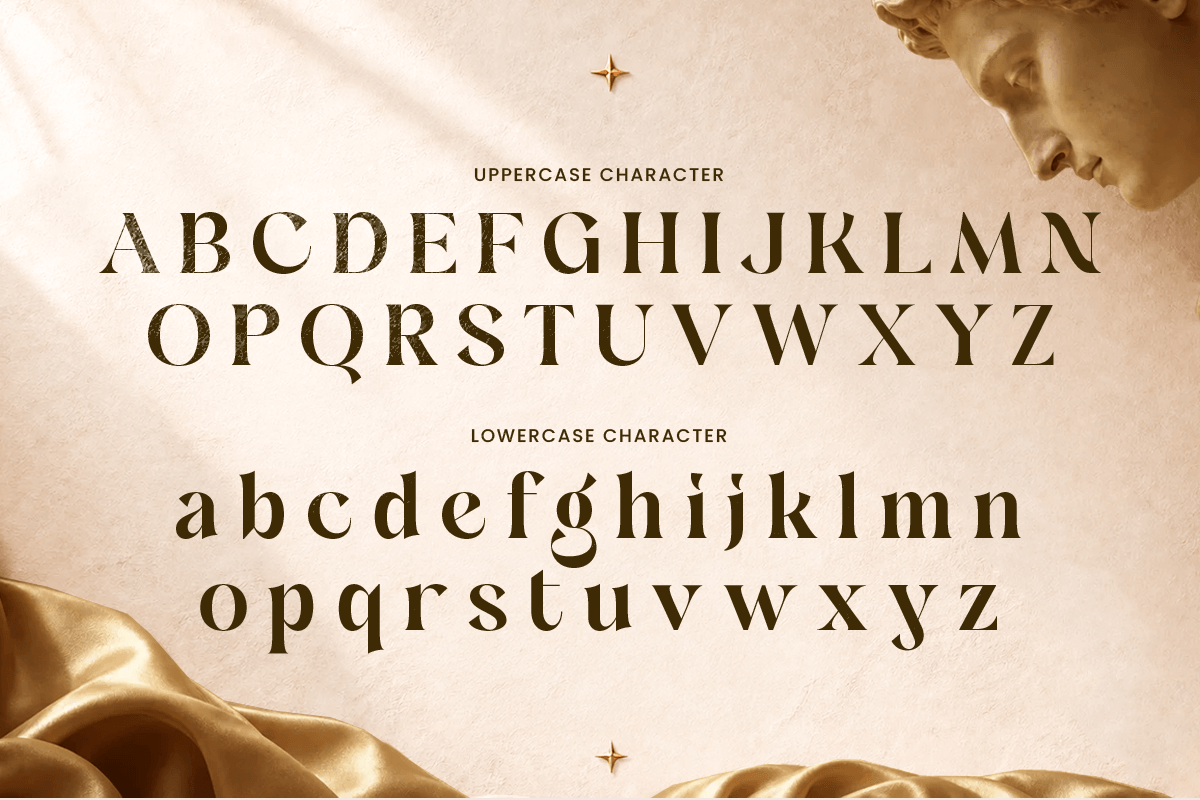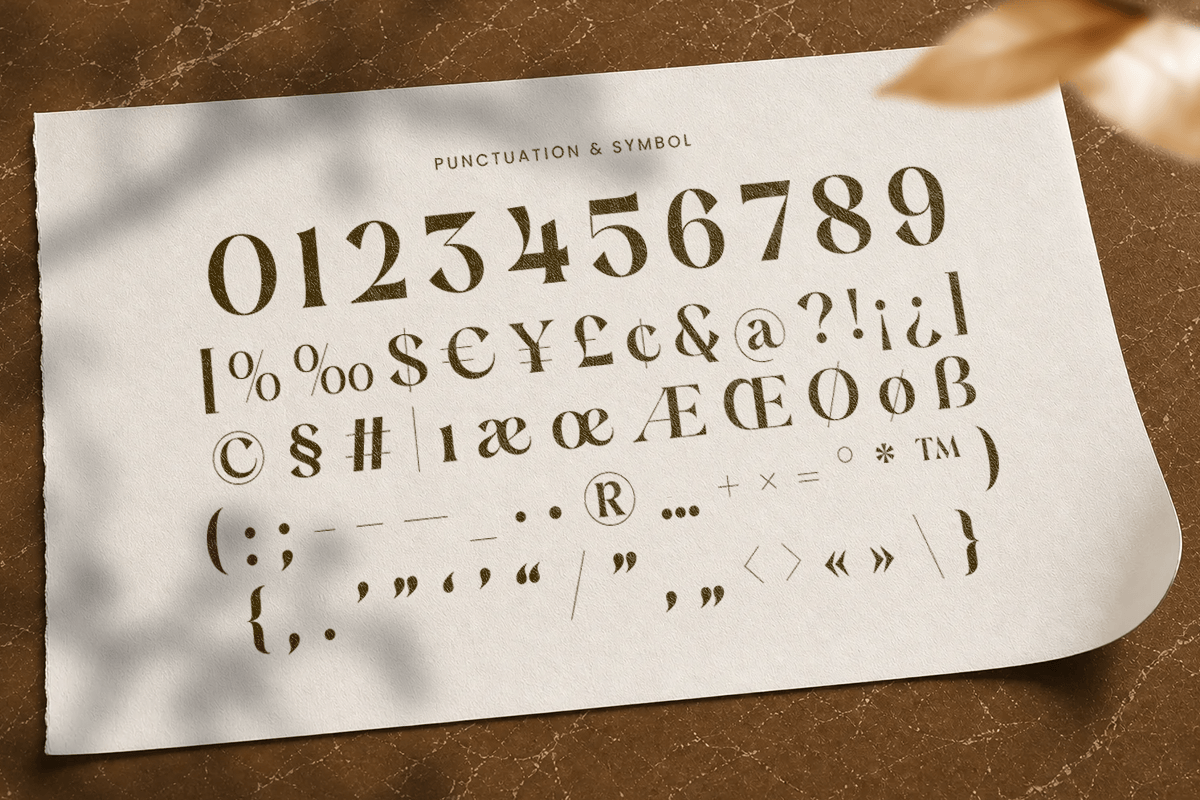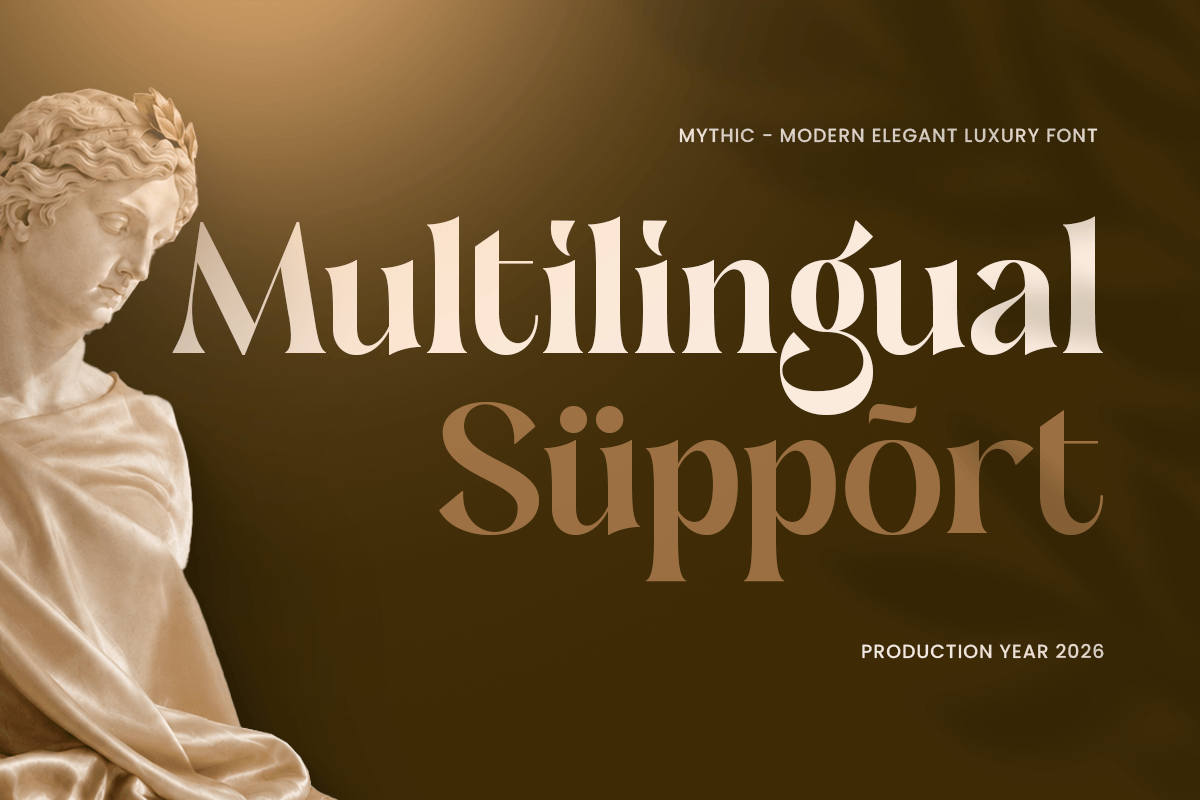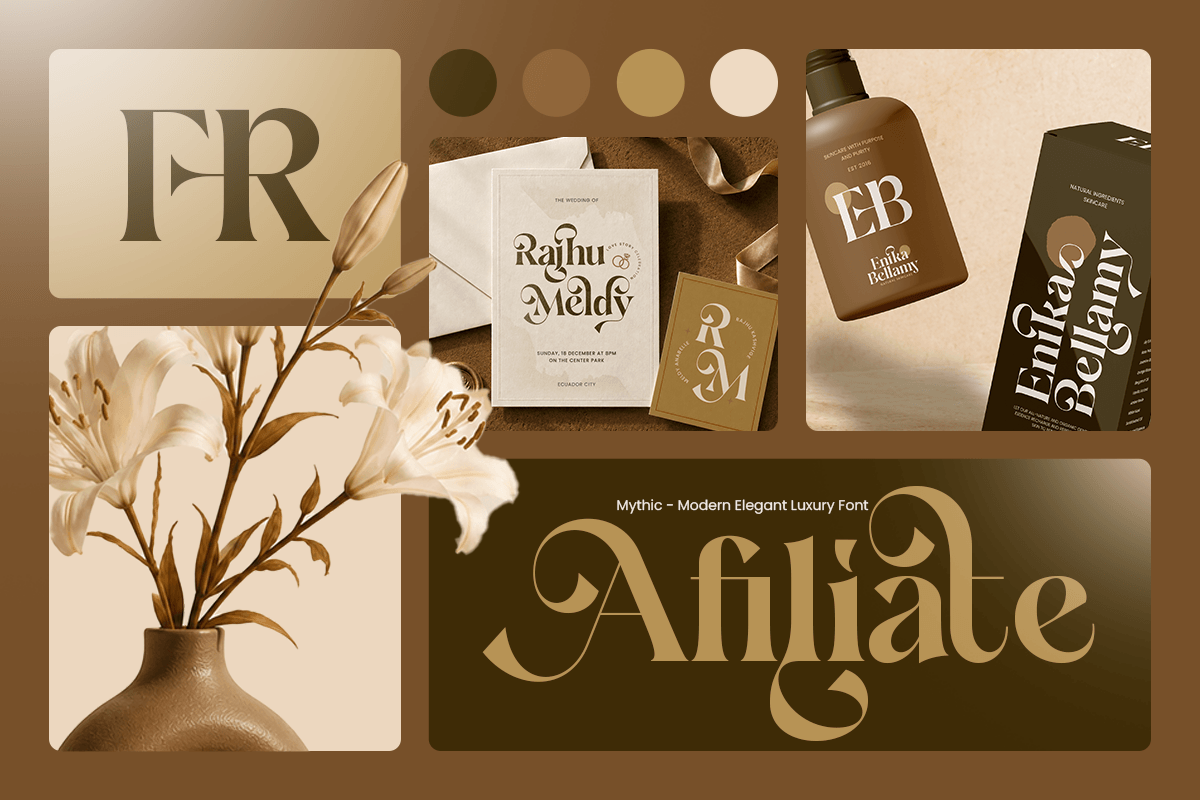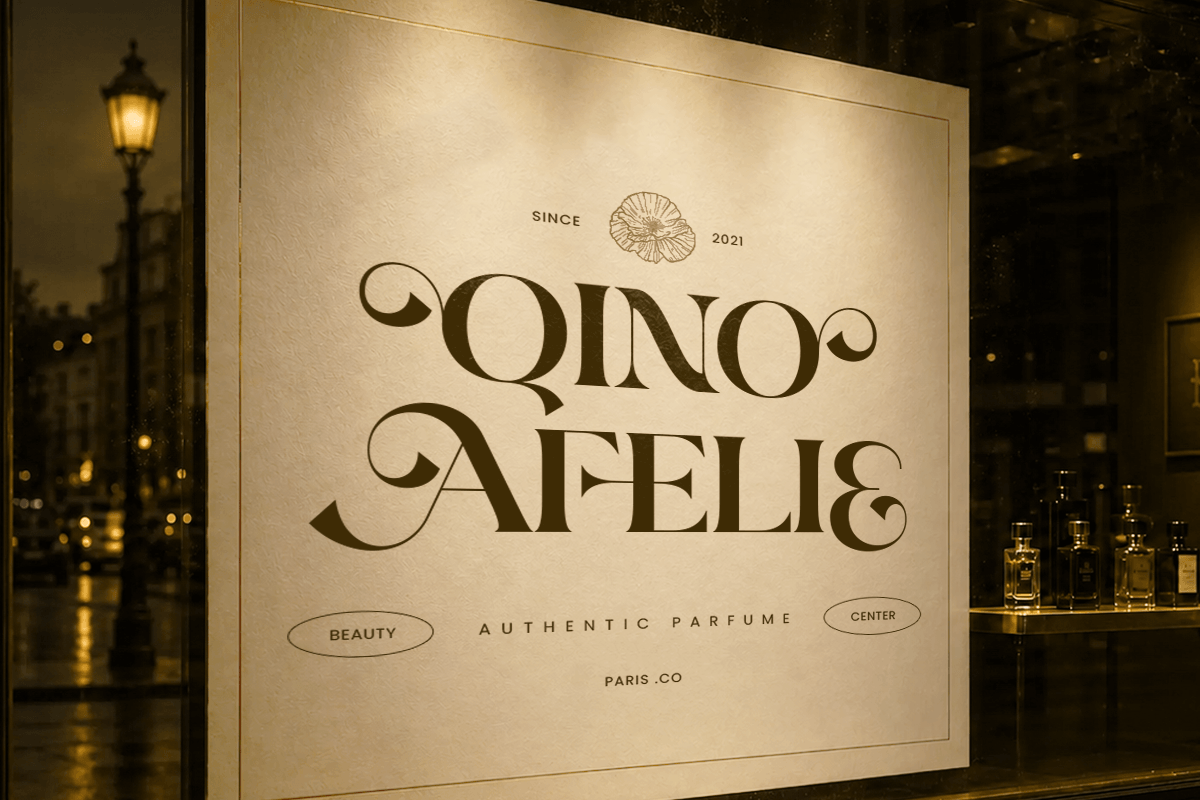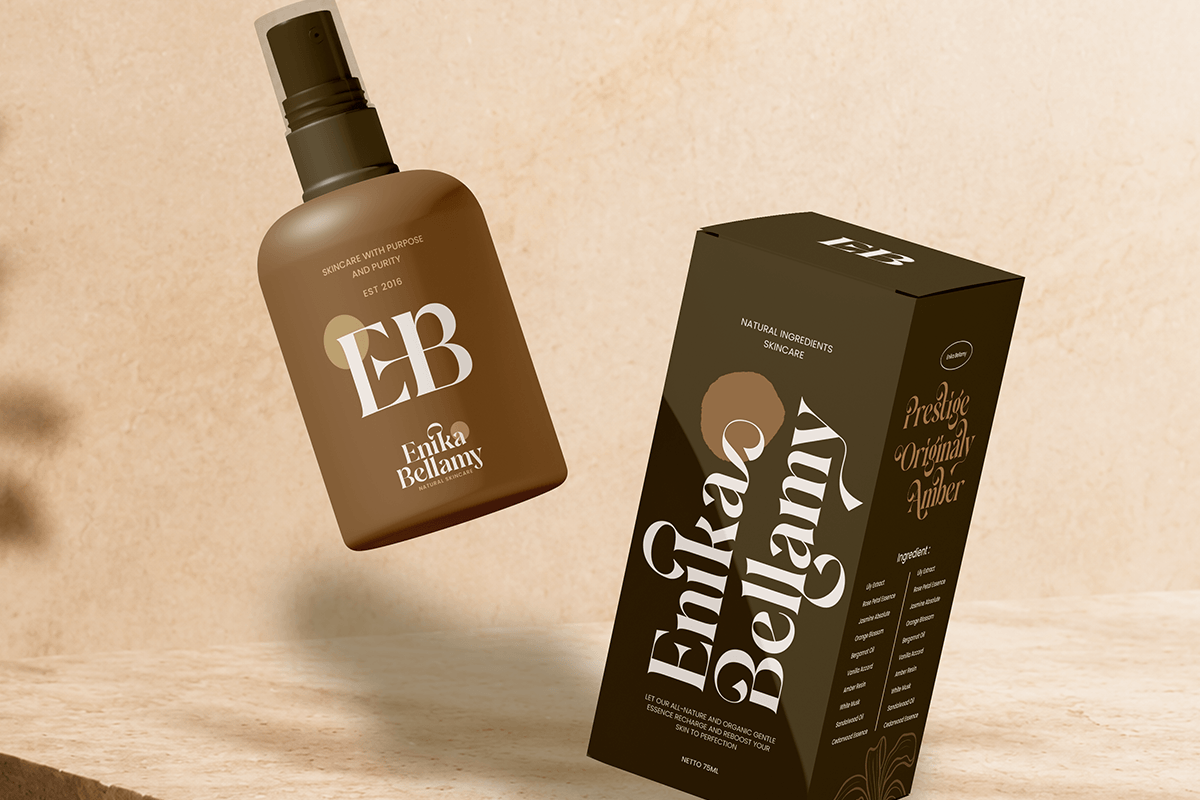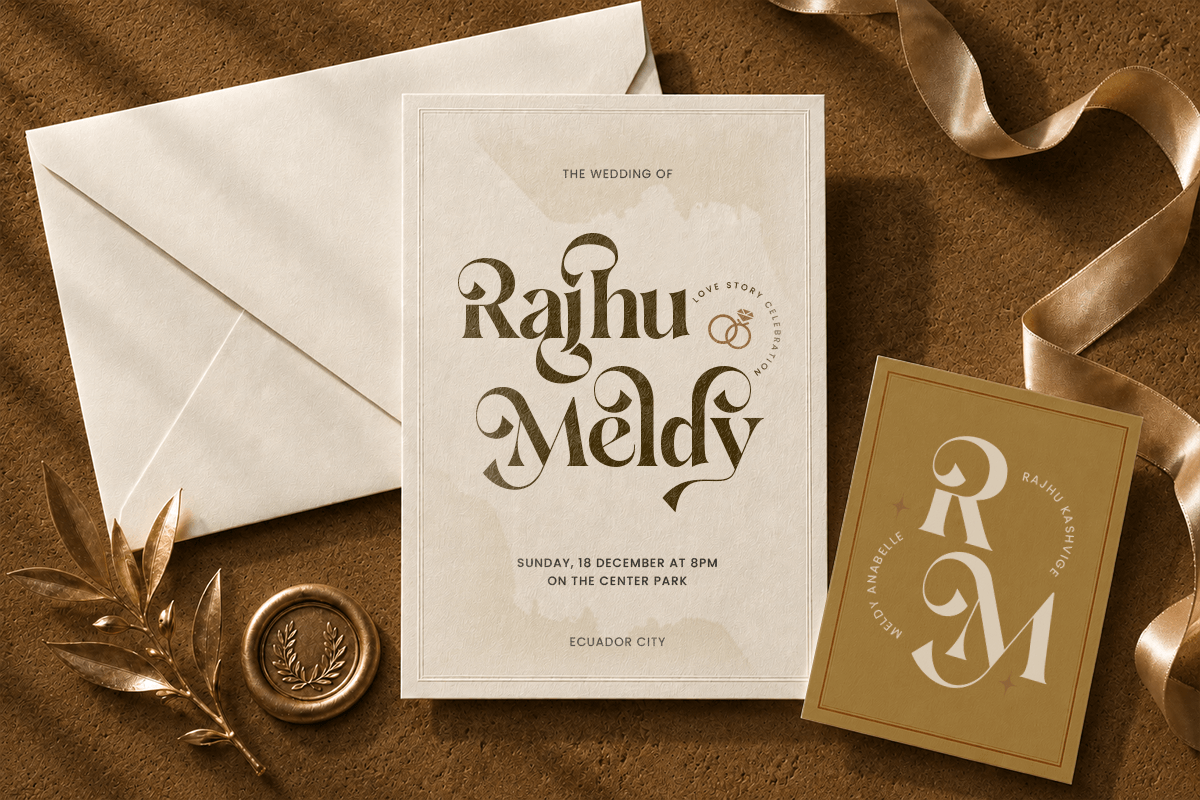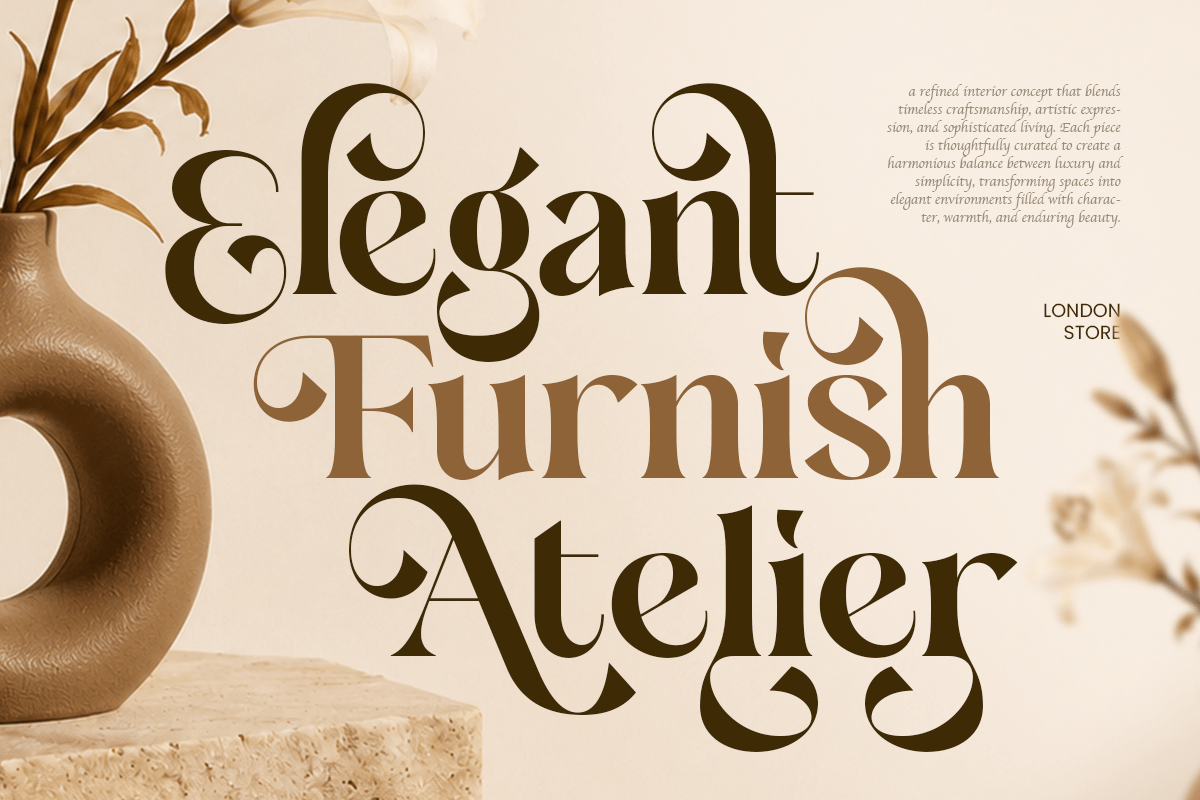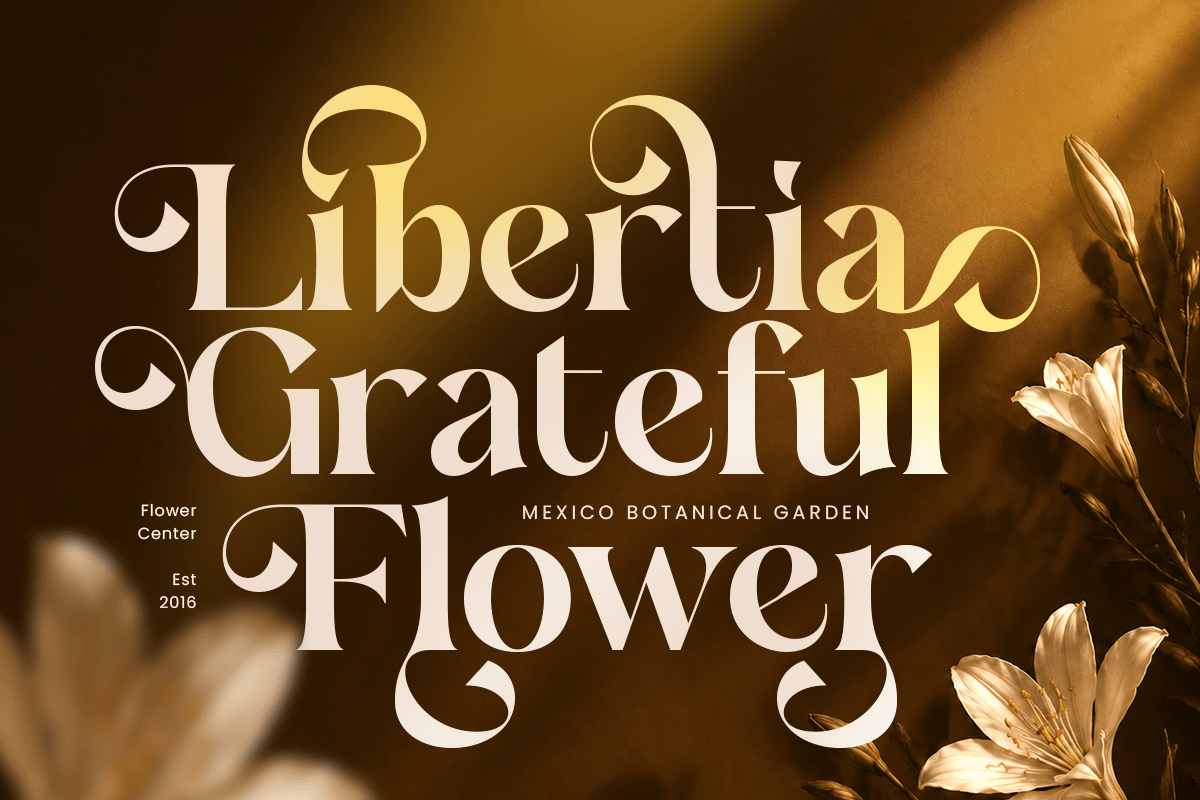
Mythic - Modern Elegant Luxury Font
Mythic is a modern elegant luxury font designed to bring sophistication, exclusivity, and timeless beauty to premium design projects. With refined letterforms, graceful proportions, and a polished visual character, this typeface is perfect for luxury branding, elegant logos, fashion editorials, packaging, and high-end visual identities.
Crafted for designers who seek a balance between modern aesthetics and classic elegance, Mythic creates a luxurious presence that feels refined and memorable. Its stylish details help elevate brand names, headlines, invitations, and product designs with a sophisticated typographic expression.
Whether used for fashion labels, beauty brands, boutique identities, wedding stationery, or premium marketing materials, Mythic delivers a graceful and exclusive appearance across both print and digital media.
Mythic – Modern Elegant Luxury Font Features
- Modern luxury design with elegant visual character
- Perfect for logos, branding, editorials, packaging, and premium identities
- Refined letterforms with sophisticated proportions
- Ideal for fashion, beauty, wedding, lifestyle, and boutique brands
- Uppercase, lowercase, numerals, and punctuation included
- OpenType features for enhanced typographic styling
Multilingual support for
Afrikaans, Albanian, Asu, Basque, Bemba, Bena, Breton, Chiga, Cornish, Dutch, English, Estonian, Filipino, Finnish, Friulian, Galician, German, Gusii, Indonesian, Irish, Italian, Kabuverdianu, Kalenjin, Kinyarwanda, Luo, Luxembourgish, Luyia, Machame, Makhuwa-Meetto, Makonde, Malagasy, Manx, Morisyen, North Ndebele, Nyankole, Oromo, Portuguese, Quechua, Romansh, Rombo, Rundi, Rwa, Samburu, Sango, Sangu, Scottish Gaelic, Sena, Shambala, Shona, Soga, Somali, Spanish, Swahili, Swedish, Swiss, and more.
Create a timeless and luxurious identity with Mythic – the perfect modern font for elegant branding, premium logos, and sophisticated design projects. ✨